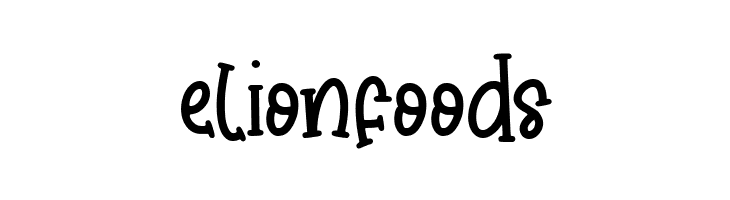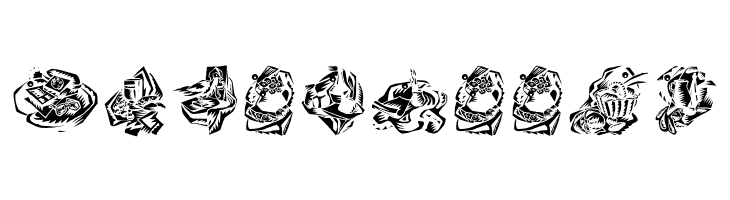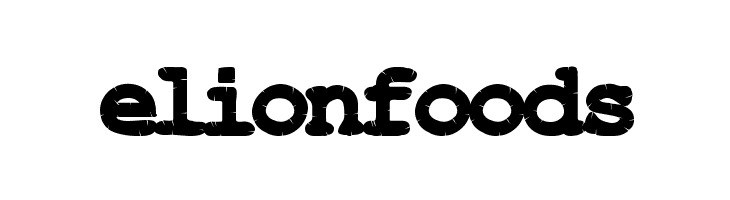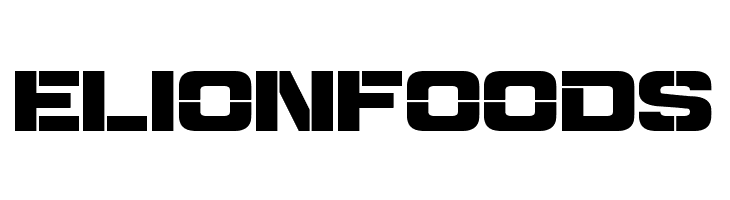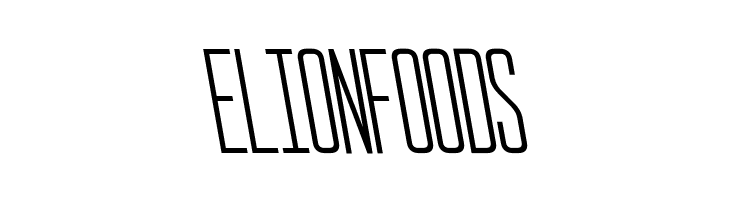
A bold, geometric font with a modern, digital aesthetic.
A decorative steampunk font with gear and cog motifs, perfect for vintage-themed designs.
A bold, geometric font with a futuristic and strong aesthetic.
A playful, hand-drawn font with a lively and informal style.
A playful, hand-drawn font with rounded edges and a whimsical style.
An artistic and decorative font with intricate, abstract designs resembling symbols or emblems.
A bold, decorative font with a stitched, handcrafted appearance.
( Fonts by Mike Wolf )
A rugged, textured font with a stone-carved appearance.
( Jeff Bensch - jbensch.deviantart.com )
A bold, slanted, monospaced font with a modern and dynamic style.